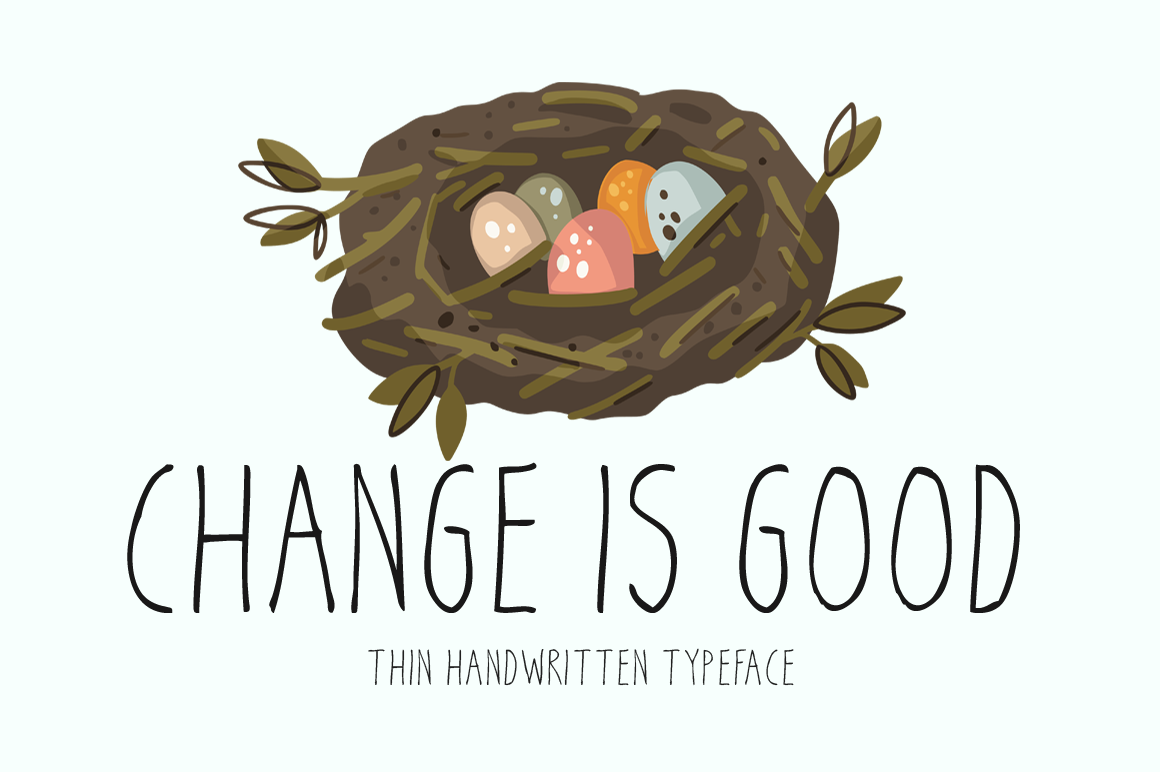
Change Is Good Typeface
Change Is Good!
Change Is Good is a brand new handwritten font. Change Is Good is perfectly suited for stationery, logos, t-shirt, paper, print design, website header, photo frame, flyer, music cover, poster, image slider, and much more.